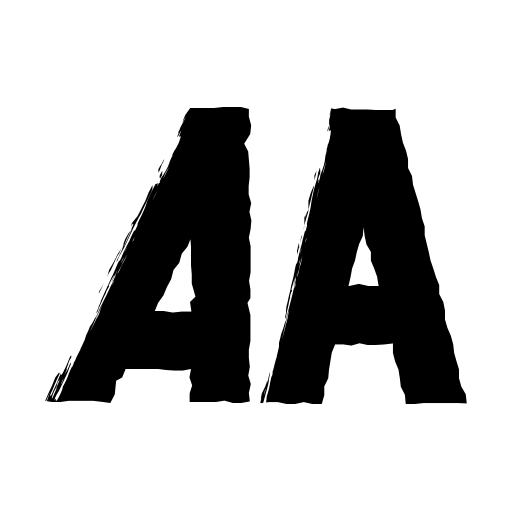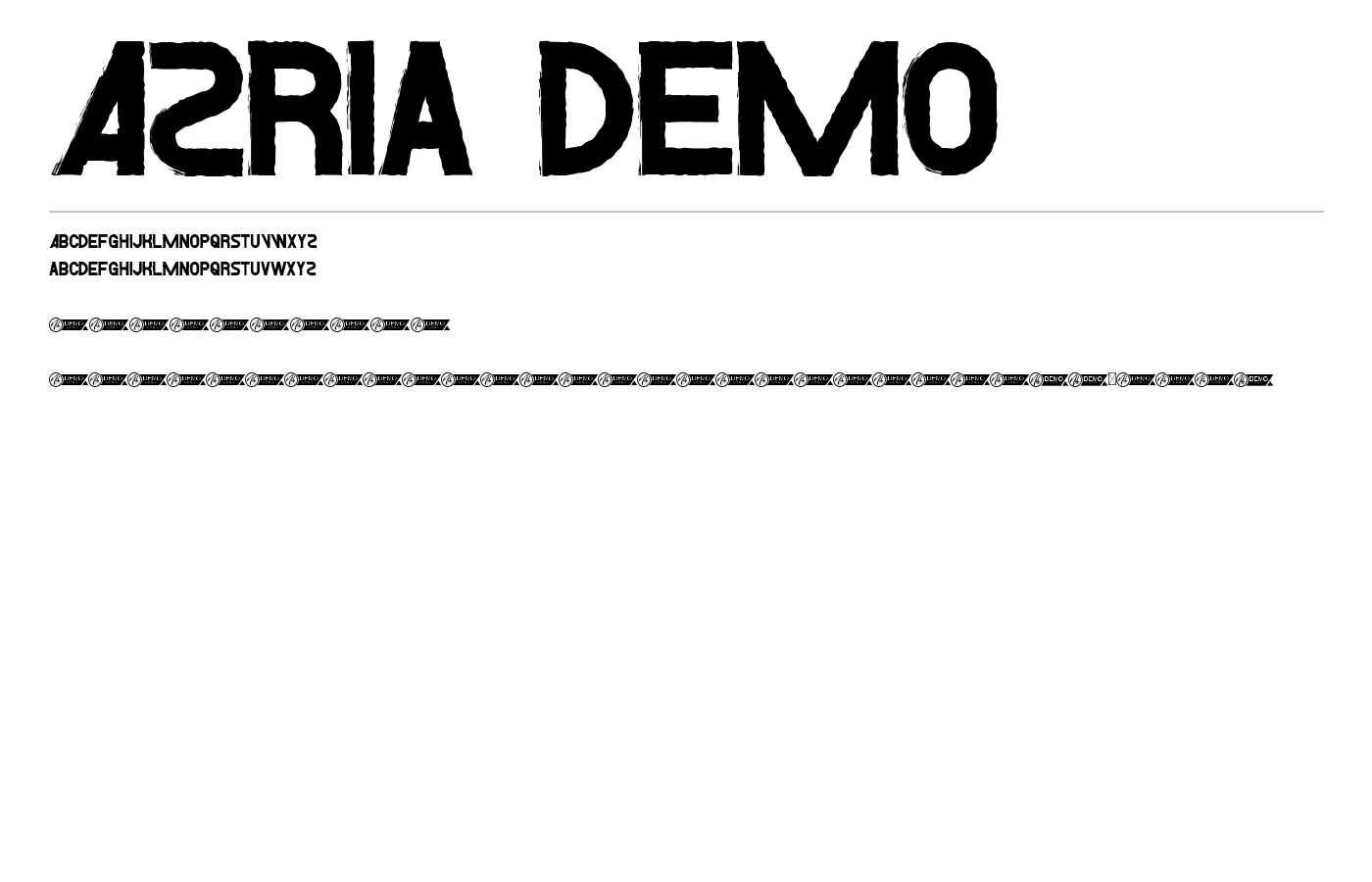
Azria Demo is a bold, condensed sans serif font with a rough, textured stroke that gives it a handcrafted and dynamic feel. Its irregular edges and strong presence make it ideal for striking headlines, logos, and creative projects that seek a distinctive, edgy character. This font works especially well where a modern yet artistic and slightly gritty aesthetic is desired.
Azria Demo Font